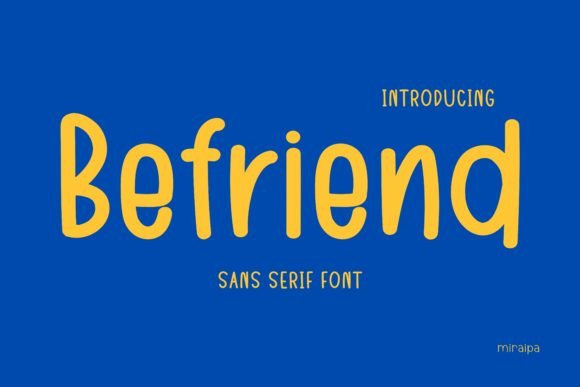
Welcome to the world of Befriend Font, where charm and elegance dance together in perfect harmony. This masterpiece by miraipa is not just a font; it's an experience that will transform your creative visions into enchanting realities.
Step into a realm where handwritten elegance meets sans serif modernity, creating a captivating symphony of visual delight. Befriend Font is the perfect companion for those seeking a touch of whimsy and warmth in their designs.
Imagine the joy of crafting wedding invitations that whisper romance and heartfelt emotions, or designing party decorations that exude an aura of celebration and cheer. Befriend Font will be your trusty partner, bringing life to every stroke and curve.
With Befriend Font, you'll embark on a journey of limitless creativity. Whether it's back-to-school projects, festive posters, or captivating social media posts, this font will elevate your designs to new heights.
Dive into the world of Befriend Font and discover a world of possibilities. Let your imagination soar as you create greeting cards that touch hearts, or design clothing lines that radiate personality. The possibilities are endless, just like the beauty of Befriend Font.